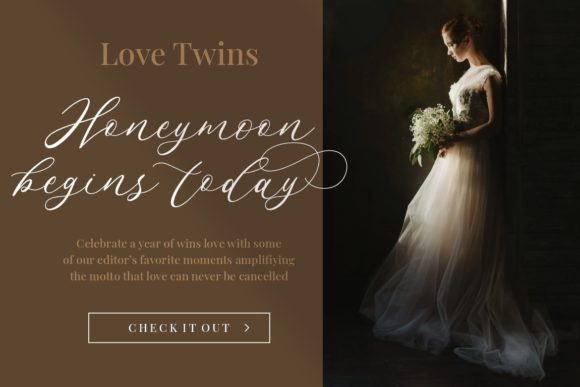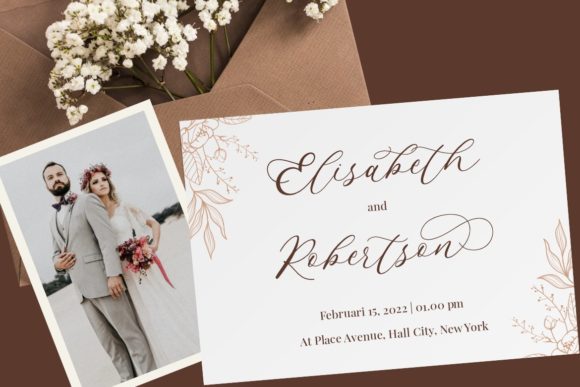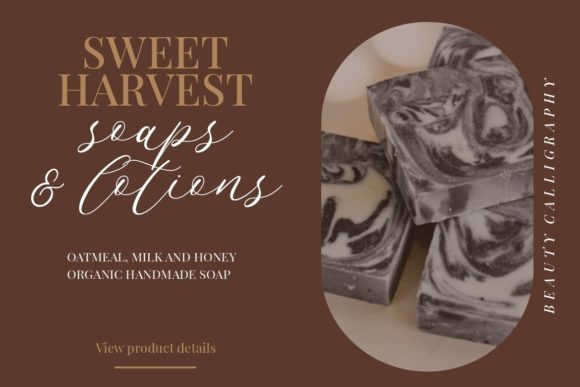
About Endless Loveness Font
Endless Loveness is a delicate and distinct script font that looks elegant, classy and sophisticated. This font is neatly crafted and highly detailed. Endless Loveness is PUA encoded which means you can access all of the glyphs and swashes with ease!